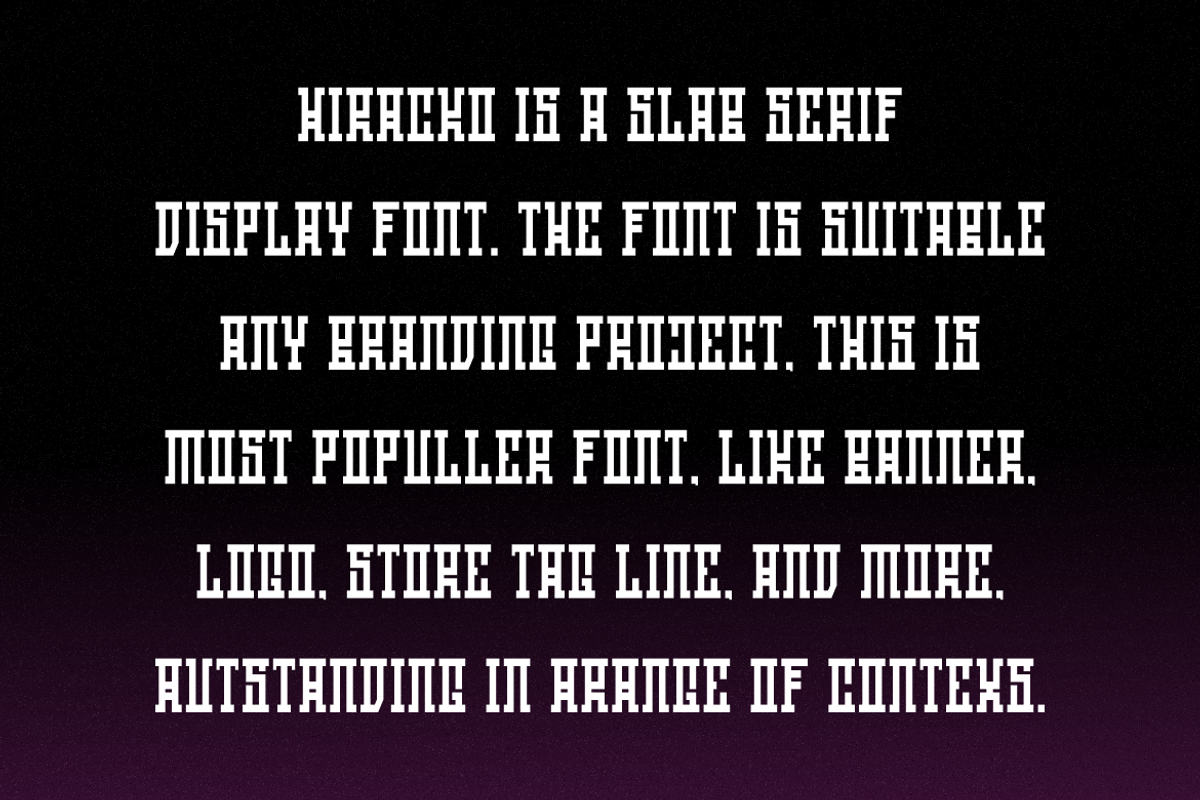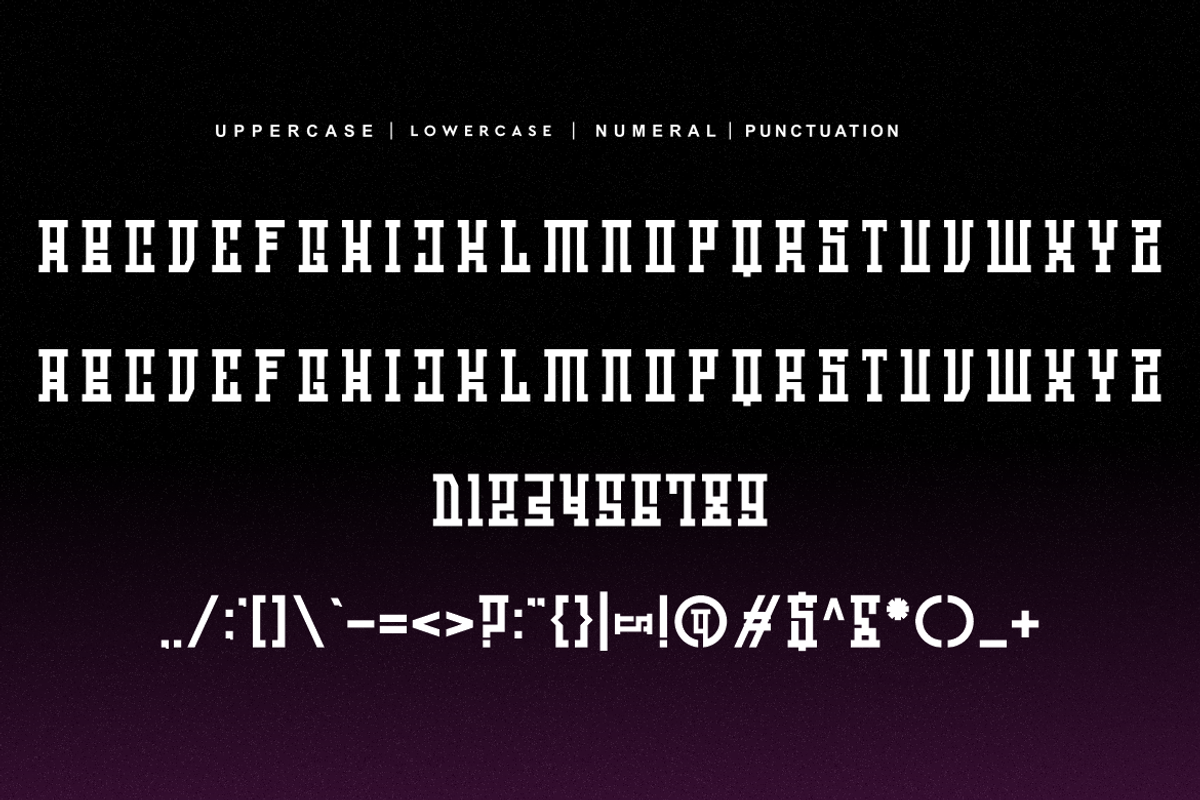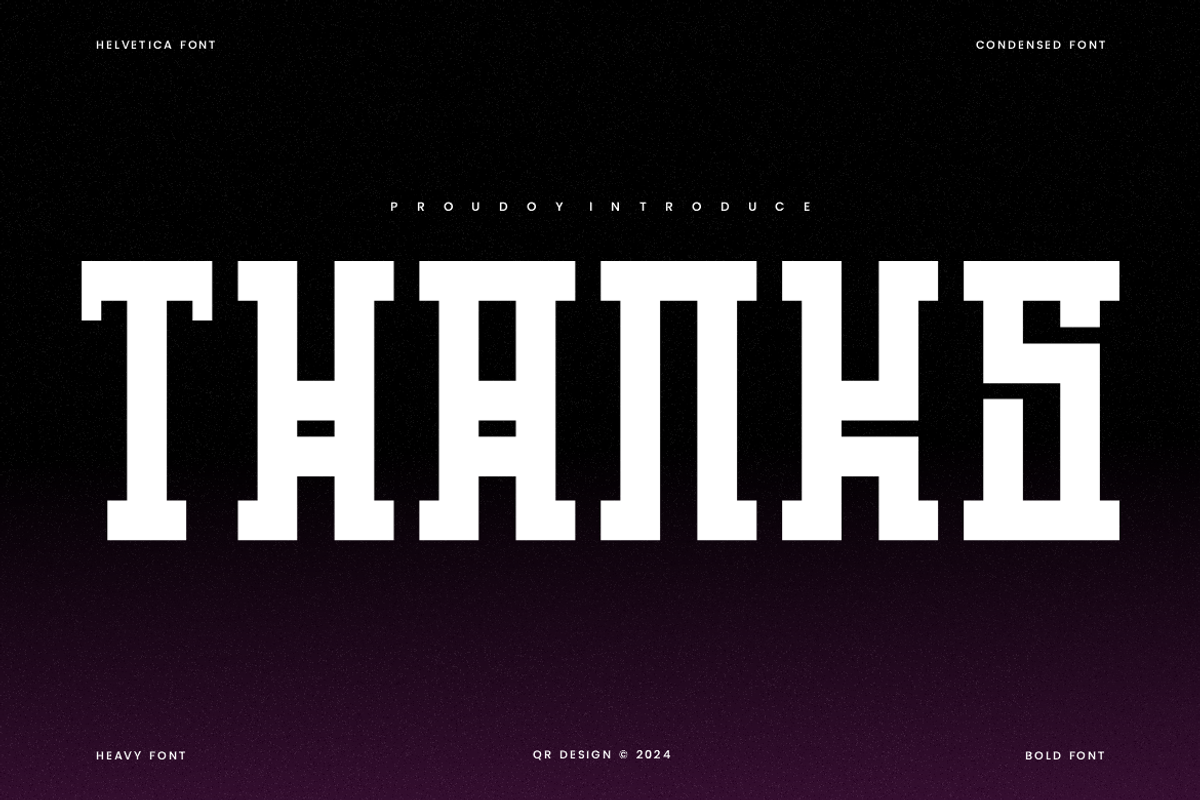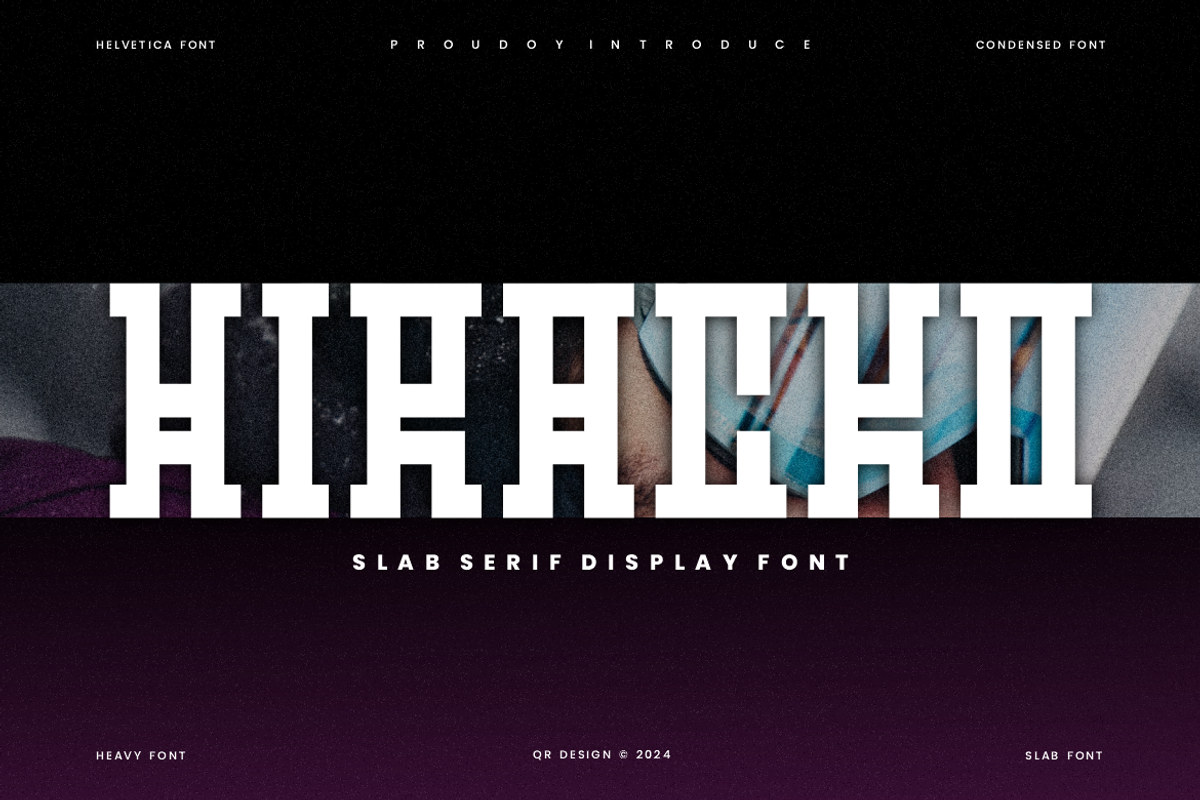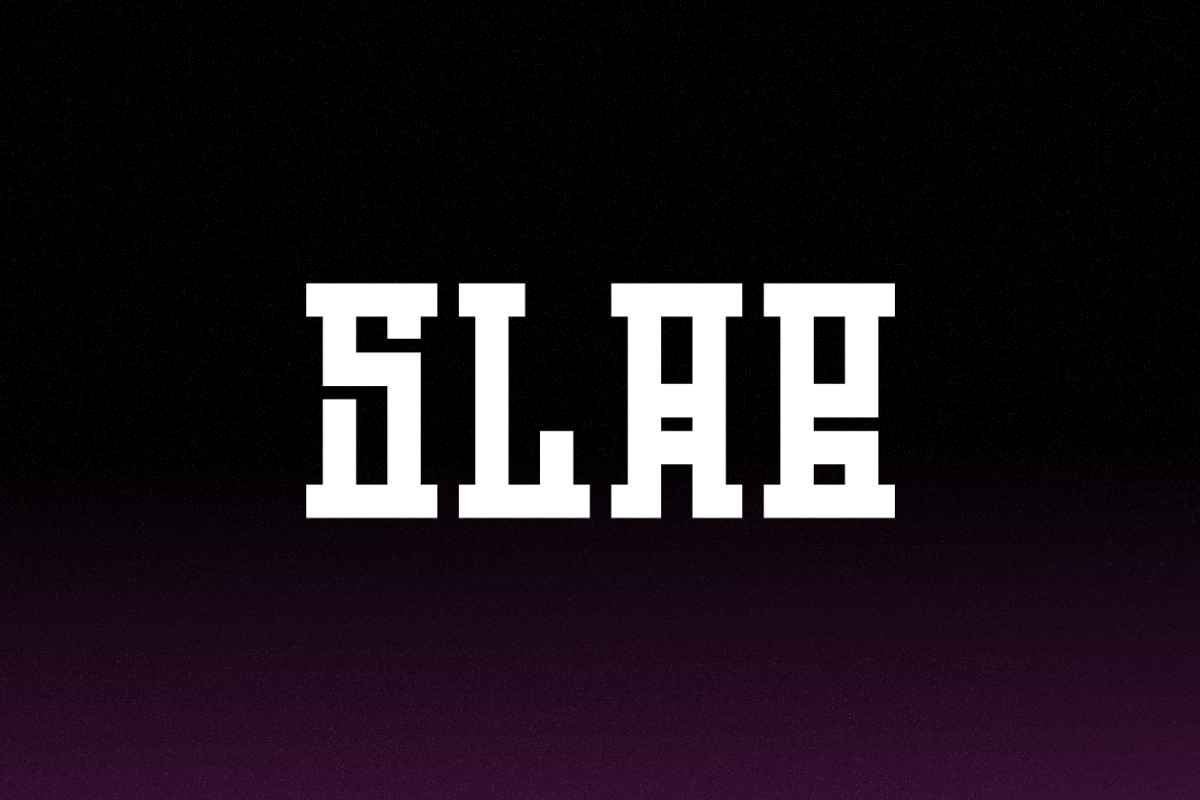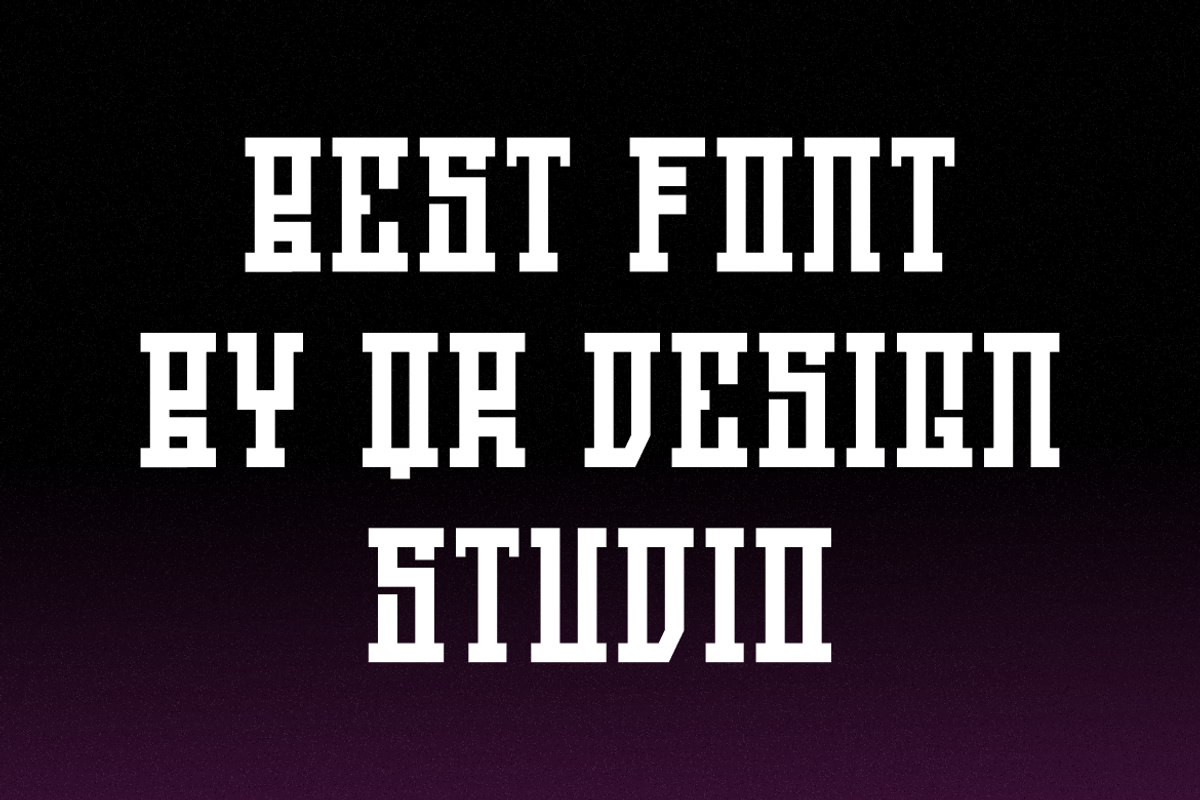
Hiracko - Modern Slab Font
Hiracko - Slab Font is a bold and authentic display font. The font is suitable for any branding project like poster, logo, sport, and many more. Outstanding in a wide range of contexts.